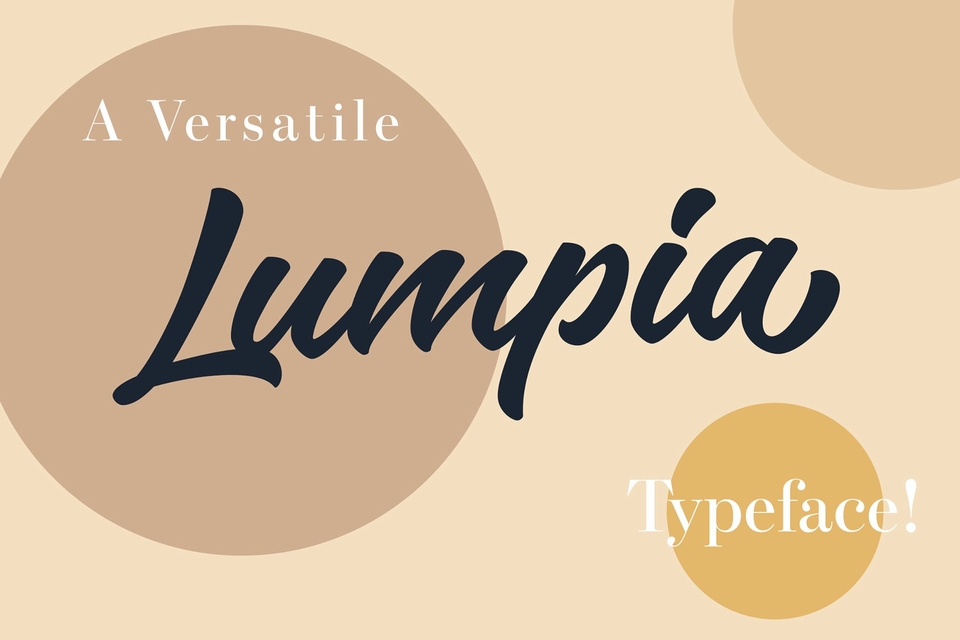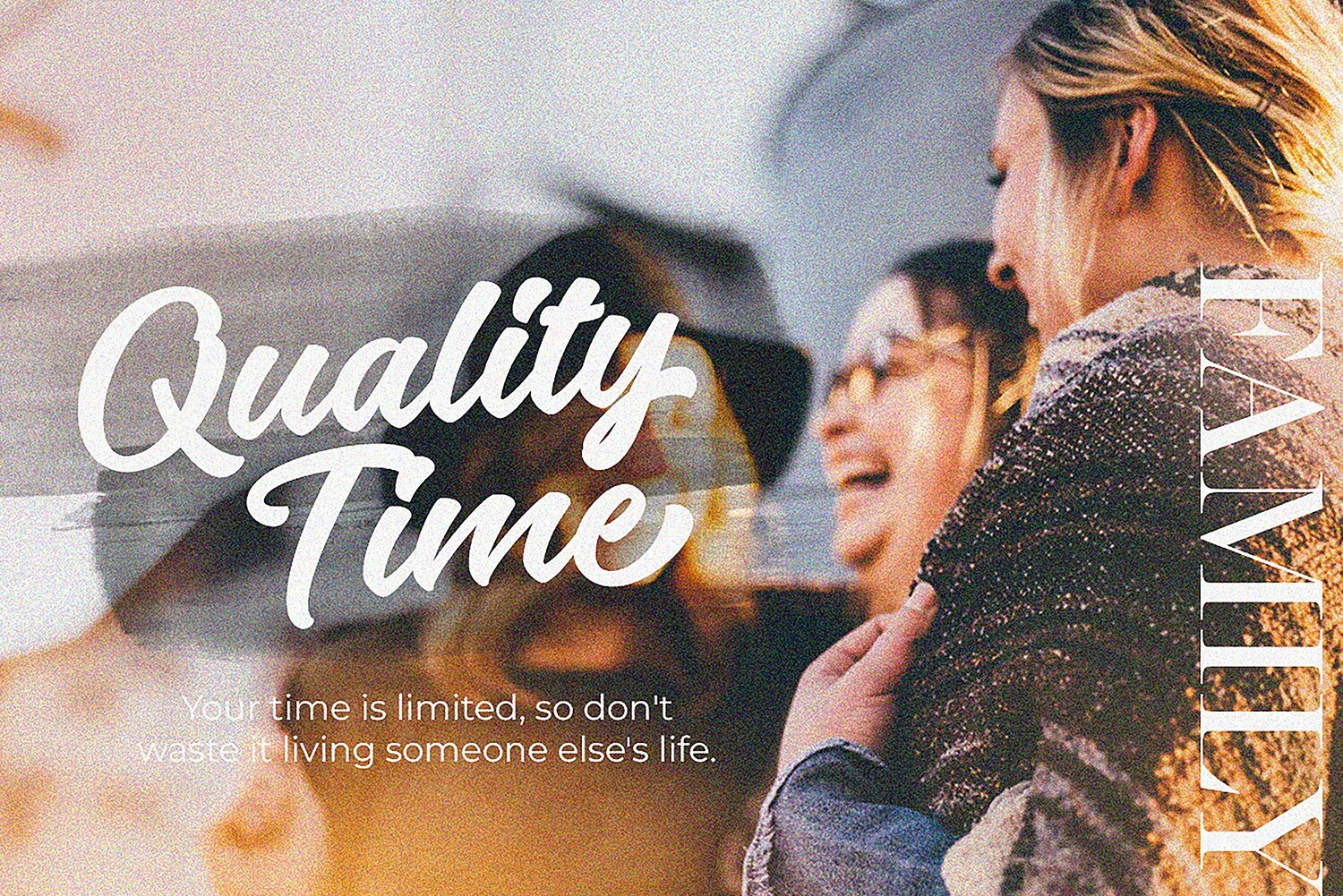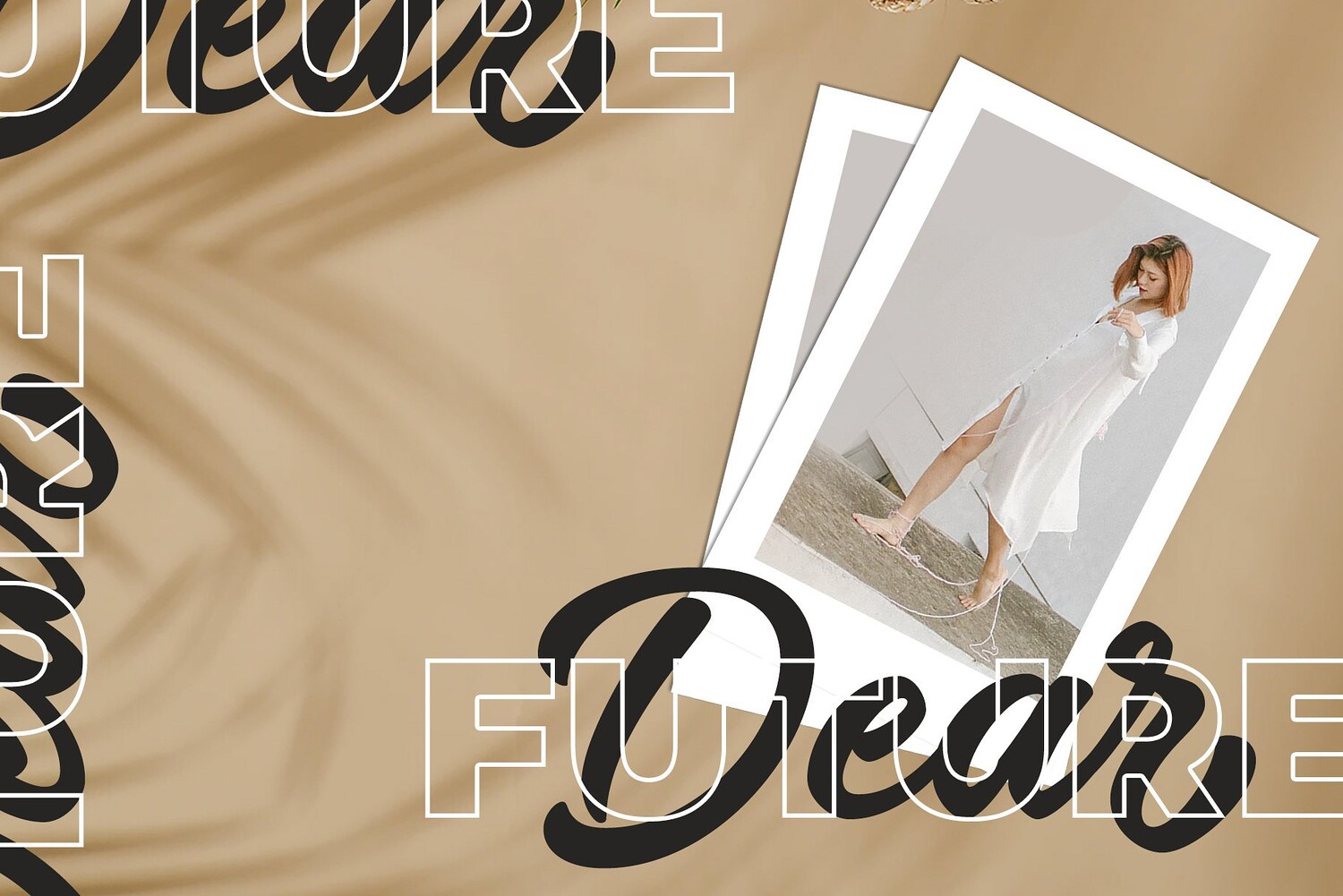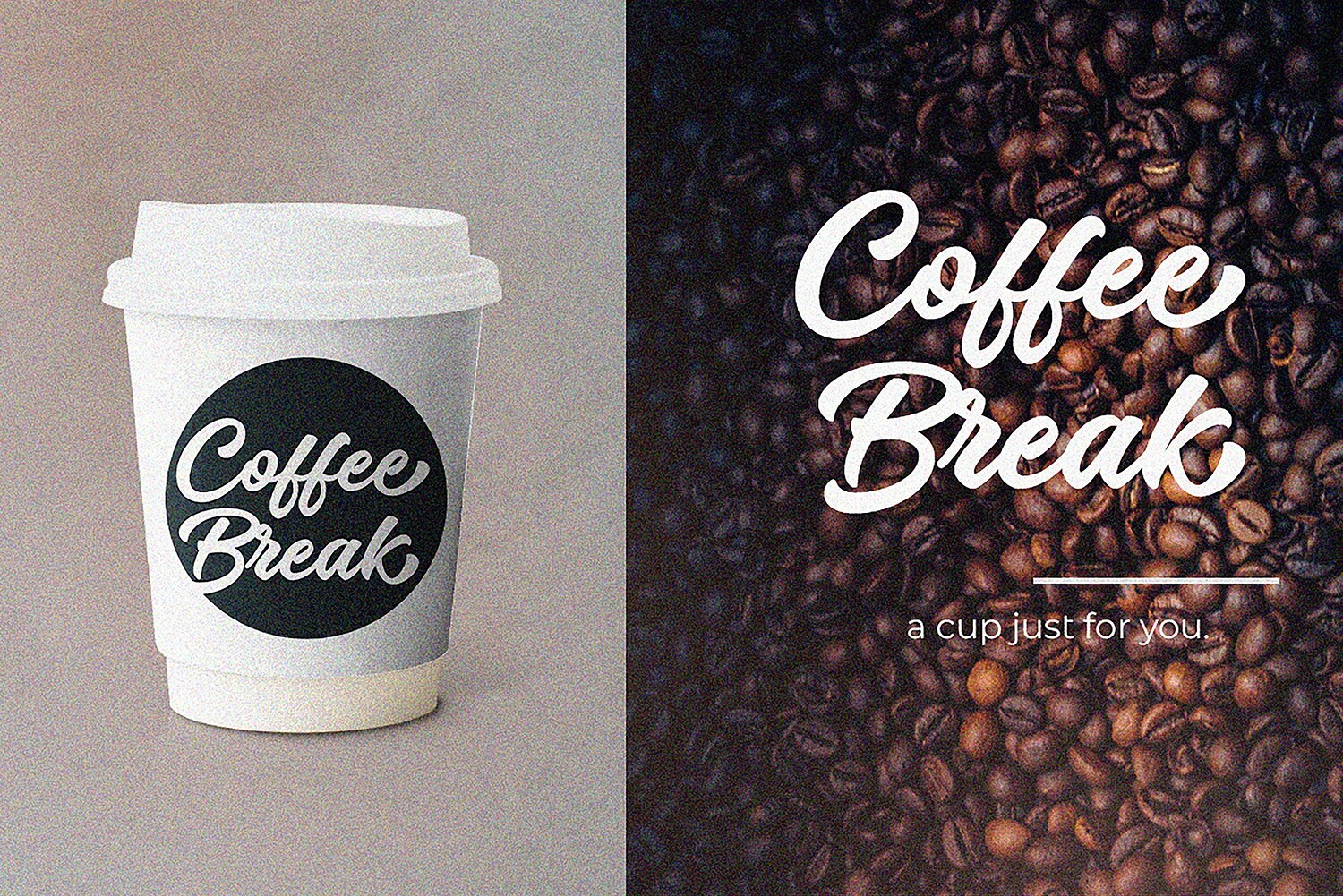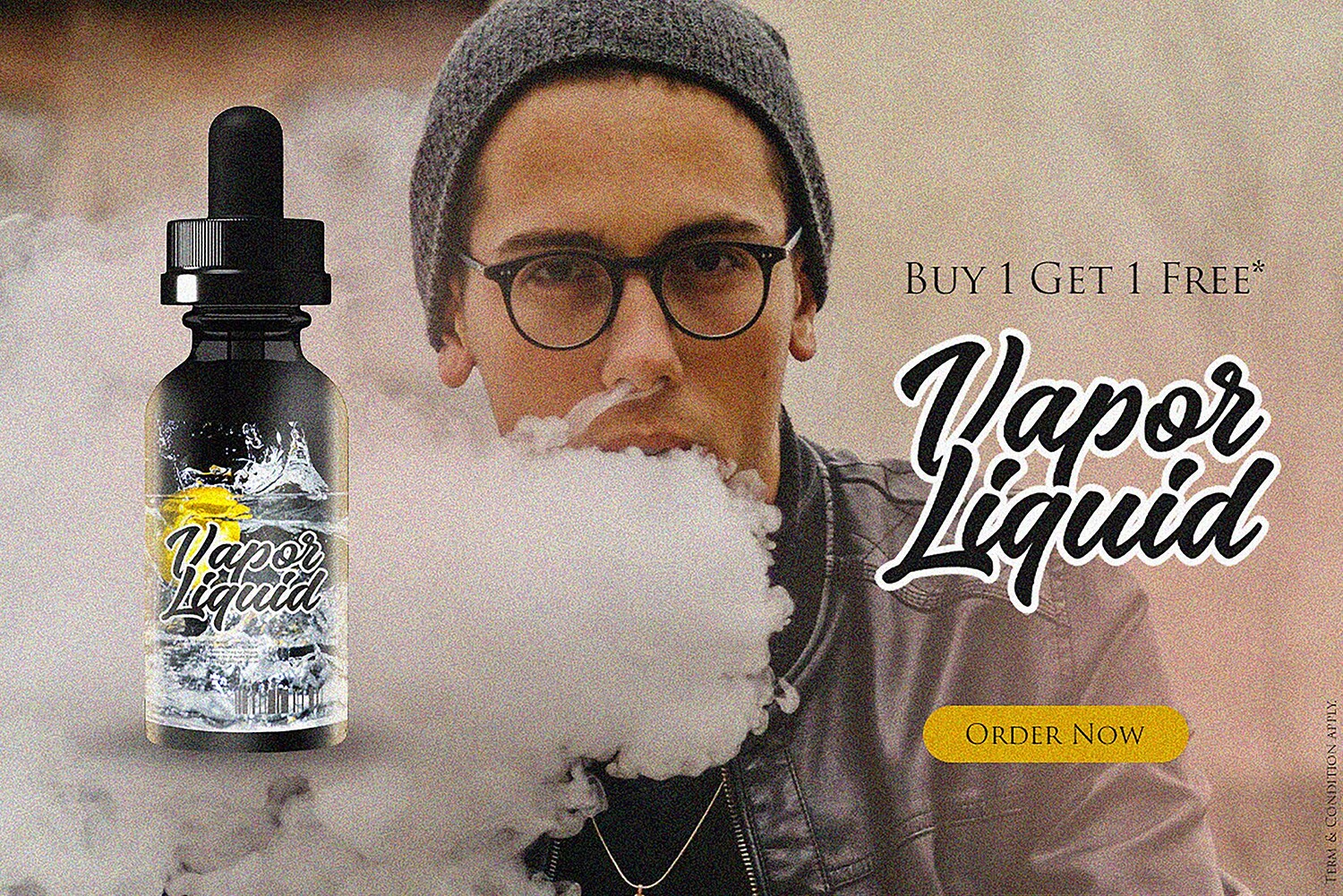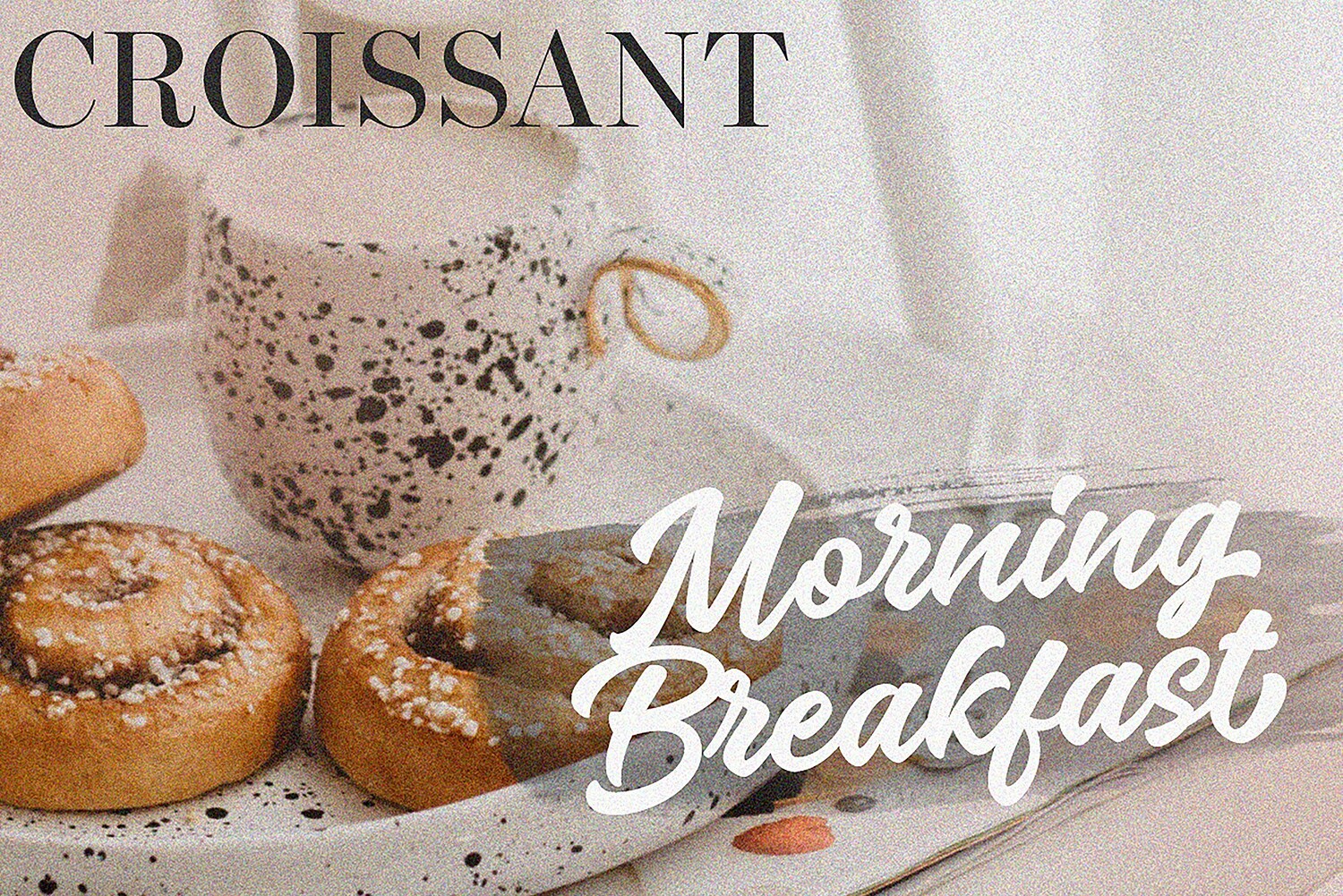
by Saffatin Co
Lumpia Brush Script Fonts
Lumpia Brush is a hand-lettering brush script font with natural nuance. This font is great for any creative project such as logos, printed quotes, invitations, cards, product packaging, headers, Logotype, Letterhead, Poster, Apparel Design, Label, and more. Lumpia Brush comes with uppercase, lowercase, numerals, punctuations, multilingual and alternative glyphs on each character and has with OpenType features, common ligatures and also additional swash. They will help your creativity to customize your designs.